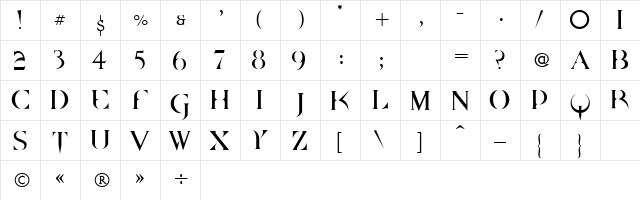
QUAKE Regular
Design Context for QUAKE Typeface
QUAKE is a composed and adaptable typeface that performs quietly and consistently across a wide range of design contexts.